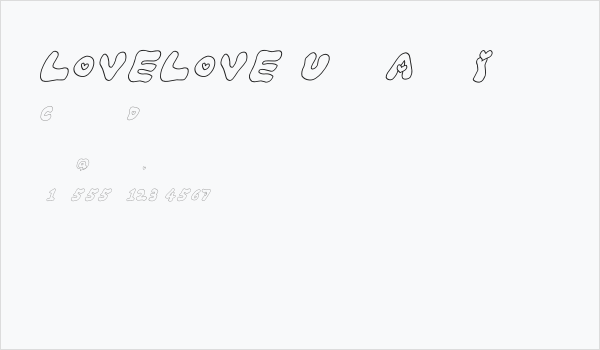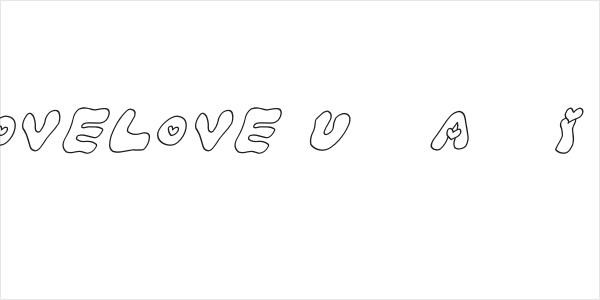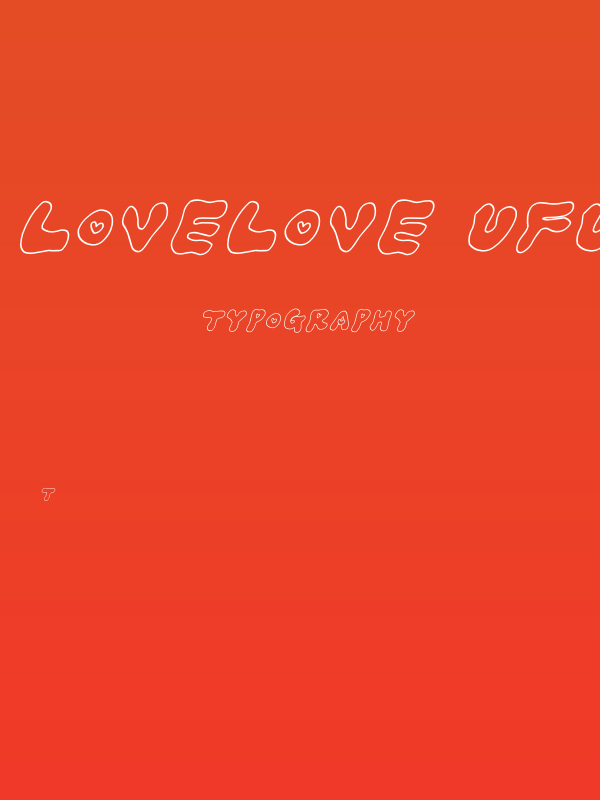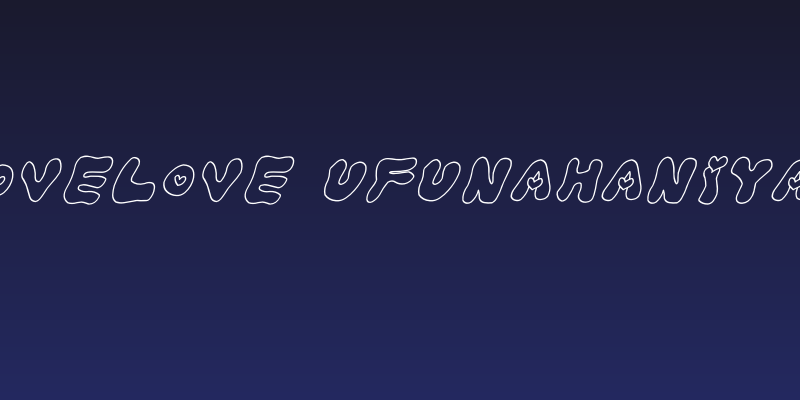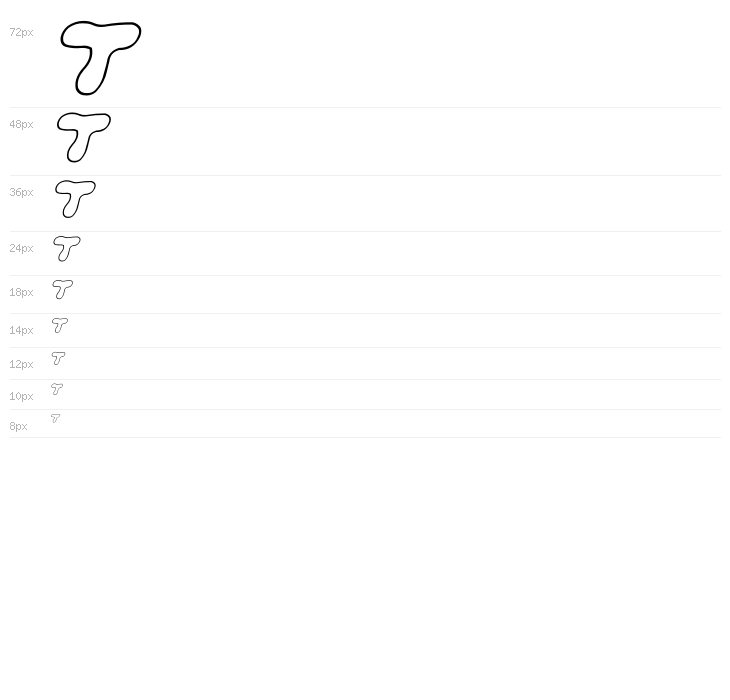
LOVELOVE_UfunAhanIyan Font
LOVELOVE_UfunAhanIyan Description
This playful and whimsical font features a bubbly, hand-drawn style with a unique twist. Each character is outlined with a bold, smooth line, and some letters and numbers incorporate heart shapes, adding a touch of charm and fun. The font maintains a consistent thickness throughout, giving it a cohesive look. Its informal and friendly appearance makes it ideal for projects that aim to convey warmth and creativity. The characters are well-spaced, ensuring readability while maintaining the font's quirky personality.
| Proposed Projects | Perfect for children's books, greeting cards, playful branding, and social media graphics. |